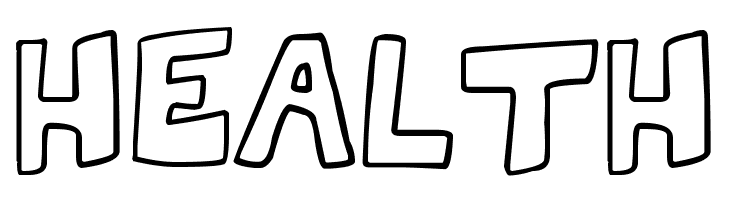
A playful, bold font with a shadow effect and cartoon-like style.
A playful, bold font with a cartoonish style and shadow effect.
A playful, bold, and outlined font with a cartoonish, hand-drawn style.
A playful, outlined font with a hand-drawn, cartoonish style.
A playful, bold font with rounded edges and a cartoonish style.
A bold, outlined, and playful font with a cartoonish style.
A bold, playful font with rounded strokes and a cartoonish style.
A playful, bold, and cartoonish font with thick, uneven strokes and a hand-drawn feel.
A bold, playful font with rounded, cartoon-like characters.
A bold, playful font with a cartoonish, dynamic style.
A bold, playful outline font with a cartoonish and energetic style.
A playful, bold font with cartoonish, exaggerated curves and a lively appearance.
A playful, bubbly font with exaggerated curves and a cartoonish style.
A modern, handwritten font with a playful and artistic flair.
A flowing, cursive script font with elegant loops and swashes.
A playful, handwritten font with tall, narrow letters and smooth strokes.
A playful, flowing script font with a handwritten style.
A charming handwritten script with fluid, connected strokes.
A flowing, cursive font with smooth, connected strokes and a handwritten appearance.
A playful, handwritten font with smooth, flowing lines and a casual style.
A graceful and elegant handwritten script with smooth, flowing curves.
A playful and elegant script font with flowing, cursive letterforms.
A playful, hand-drawn font with tall, narrow characters and a whimsical style.
A bold, cursive font with a flowing, handwritten style.
A charming handwritten script with smooth, flowing characters.
A playful, hand-drawn font with bold, irregular strokes and dynamic character.
A dynamic and fluid script font with elegant, flowing curves.
A playful, handwritten font with bold, expressive characters and unique flourishes.
( Fonts by Bluestype Studio - Jefri Dwi Alfatah - Personal-use only. For commercial use please contact owner. )
A lively handwritten font with fluid strokes and a playful bounce.
( Fonts by BrandSemut - A Sidiq - Personal-use only. For commercial use please contact owner. )
A bold serif font with strong, classic features and pronounced serifs.
( Fonts by Carlos Barbosa - Personal-use only. For commercial use please contact owner. )
A bold, geometric font with rounded edges and a modern, futuristic style.
( Fonts by Carlos Barbosa - Personal-use only. For commercial use please contact owner. )
A modern, geometric font with clean lines and a futuristic feel.
( Fonts by Colative Studio - Personal-use only. For commercial use please contact owner. )
A cursive, elegant font with smooth, connected characters and a classic-modern appeal.
A dynamic, flowing script font with elegant cursive letterforms.
An elegant, high-contrast script font with flowing, interconnected letters.